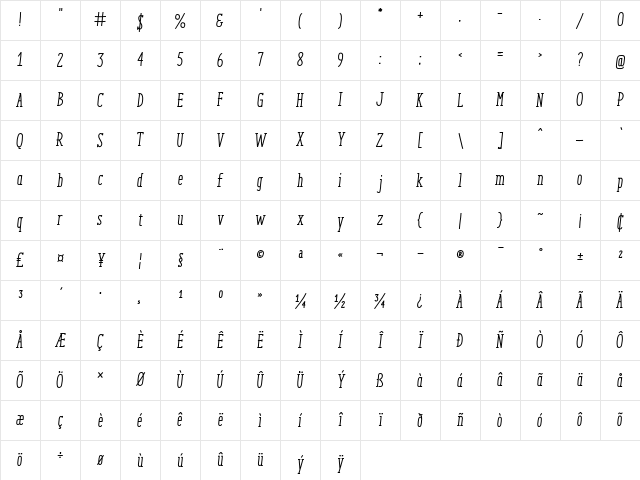
Complete ENYO Serif Medium Italic glyph index. Displaying only characters natively supported by ENYO Serif Medium Italic font.
ENYO Serif carries the refined structure of traditional serif typography, with bracketed terminals and considered proportions that communicate credibility and craft. The slanted form adds forward momentum and visual energy.
Pro Tip: Use ENYO Serif for editorial body copy and considered headline work. Pair with a neutral sans for UI elements or captions to create a classic hierarchy.